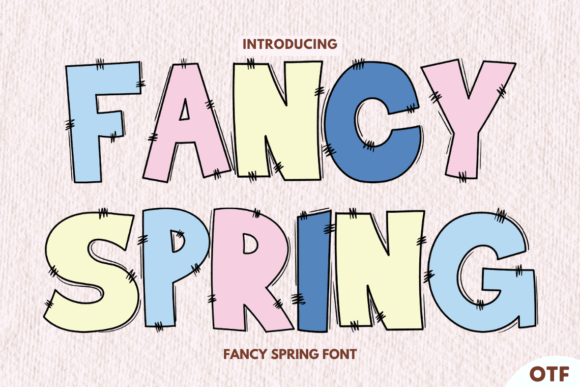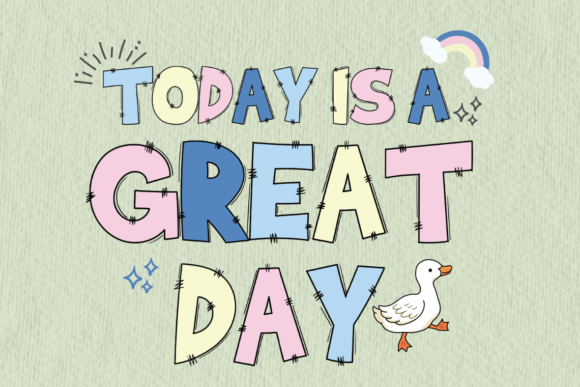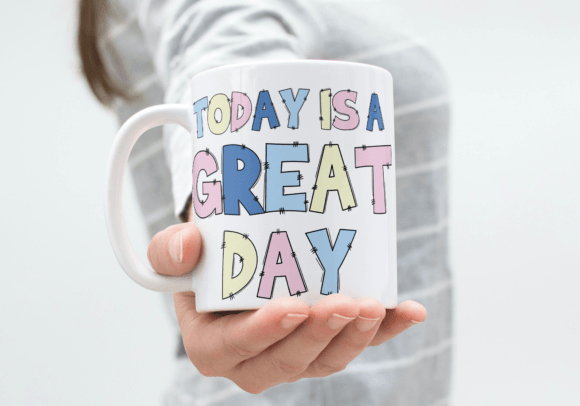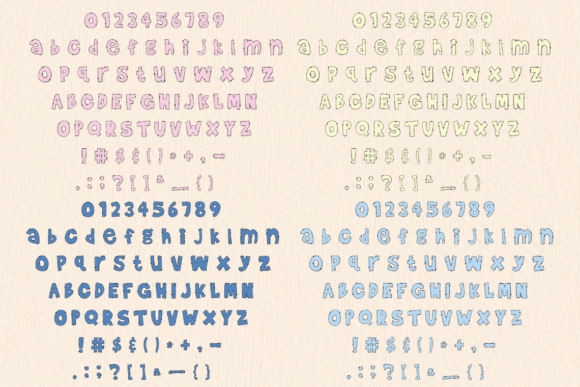
Fancy Spring Font
Introducing Fancy Spring — a fun and vibrant typeface perfect for capturing the essence of the season, pastel colors, weekends, holidays, Valentine’s themes, love, and various creative projects. This cute alphabet is ideal for designing posters, invitations, headers, titles, greeting cards, lettering, and more. Elevate your designs with the sophisticated charm of this font, turning each piece into a visually engaging and creatively crafted expression.Note!This product is a color font (Opentype-SVG) and is compatible with PhotoShop, Illustrator. The OTF and/or TTF files of this product are not compatible with Cricut, Silhouette and Inkscape. For more information on how to use this type of font please check our Ultimate Font Guide .